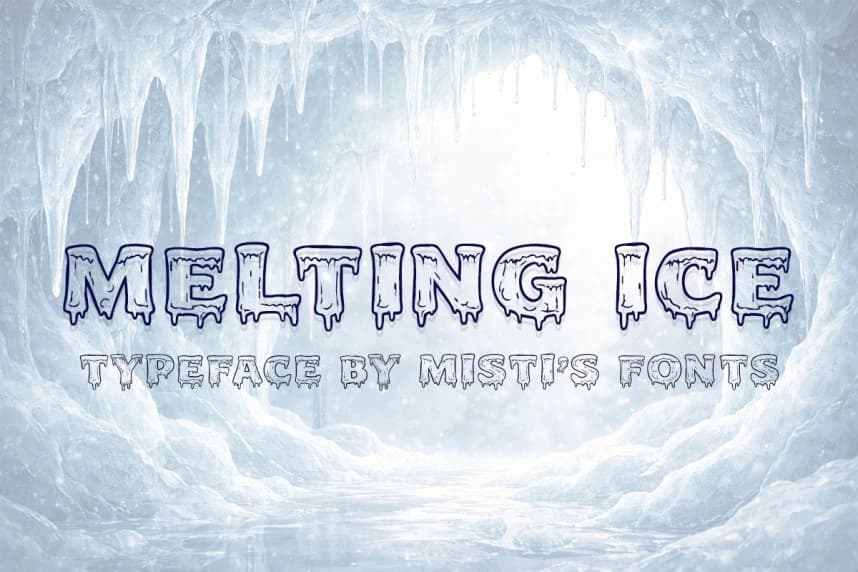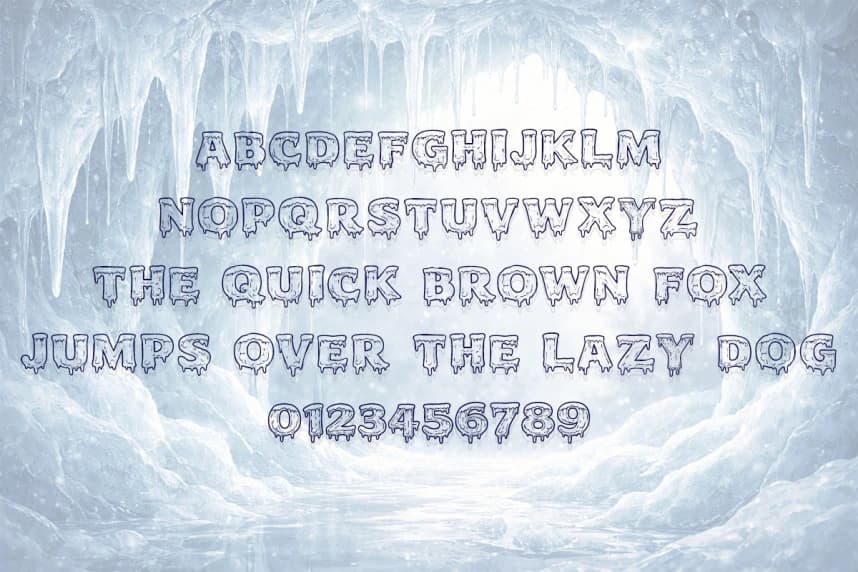
Melting Ice Font
Melting Ice Font - Immerse yourself in the winter’s charm with this icy-themed typeface. Drawing rich inspiration from the beauty of melting icicles and fascinating patterns of thawing winter textures, we present you our Frozen Display font.